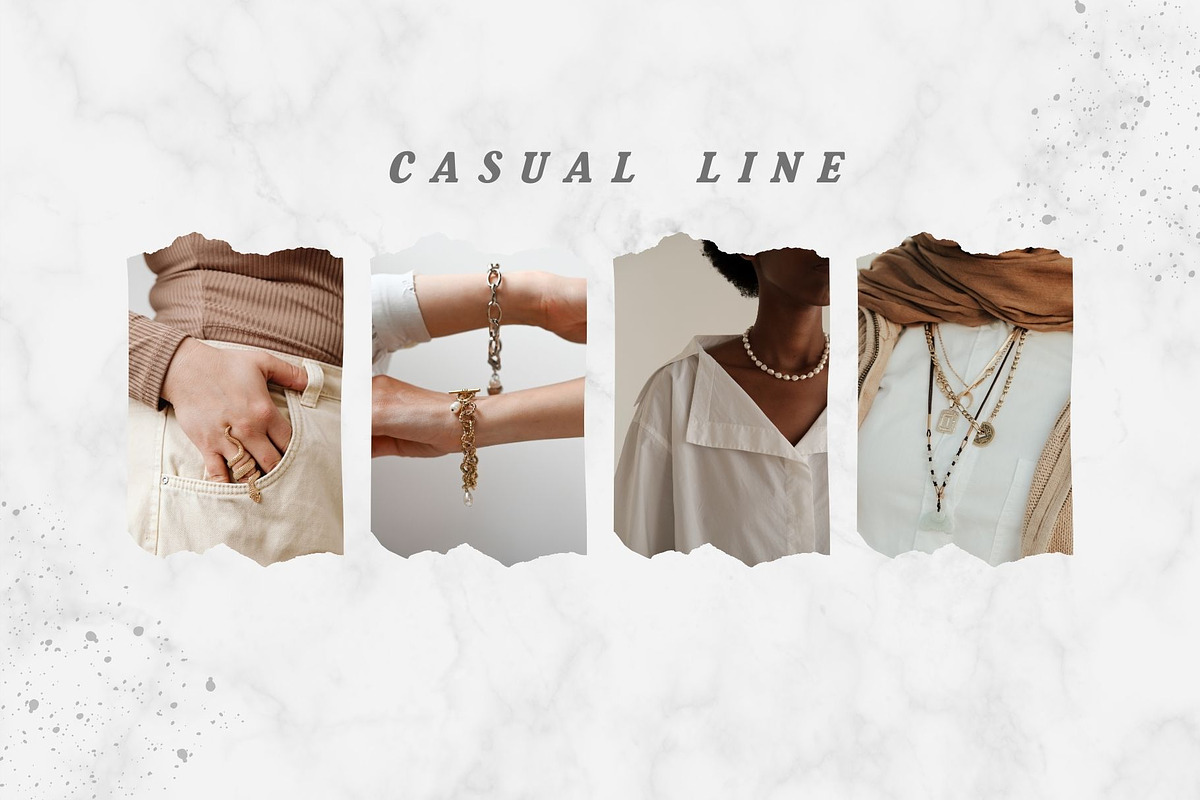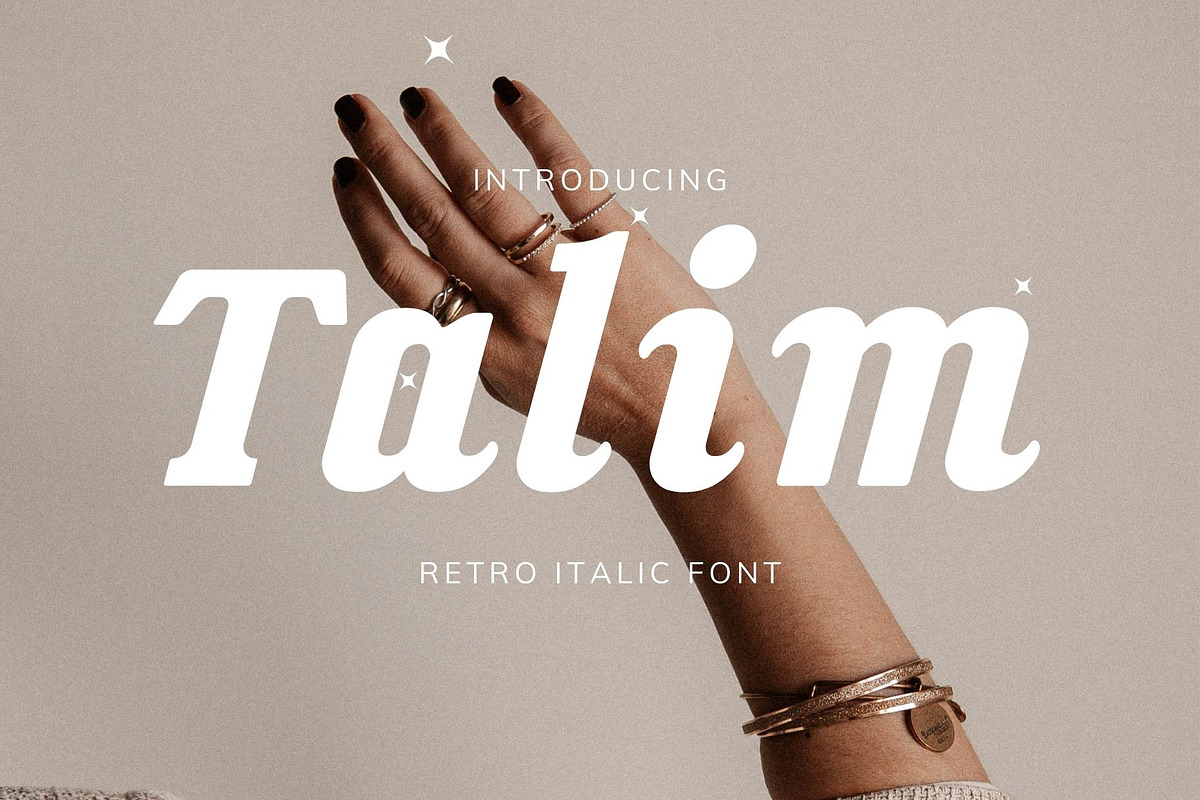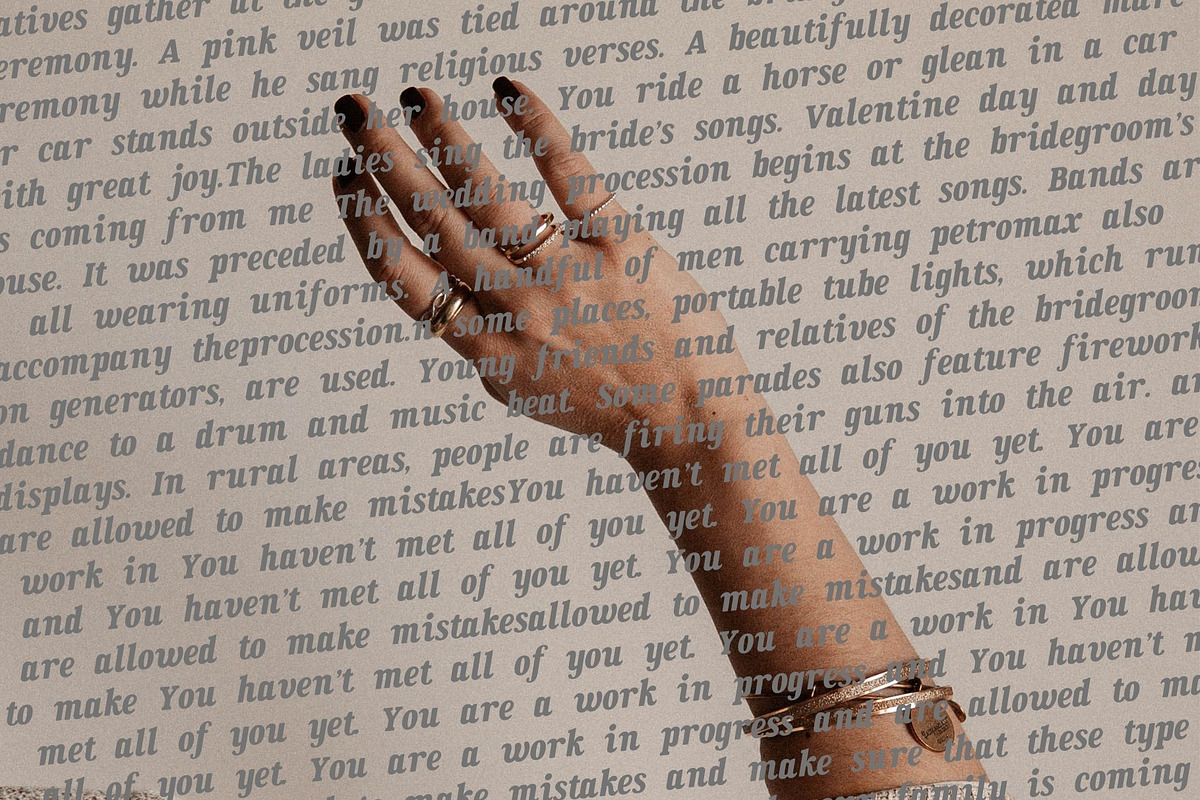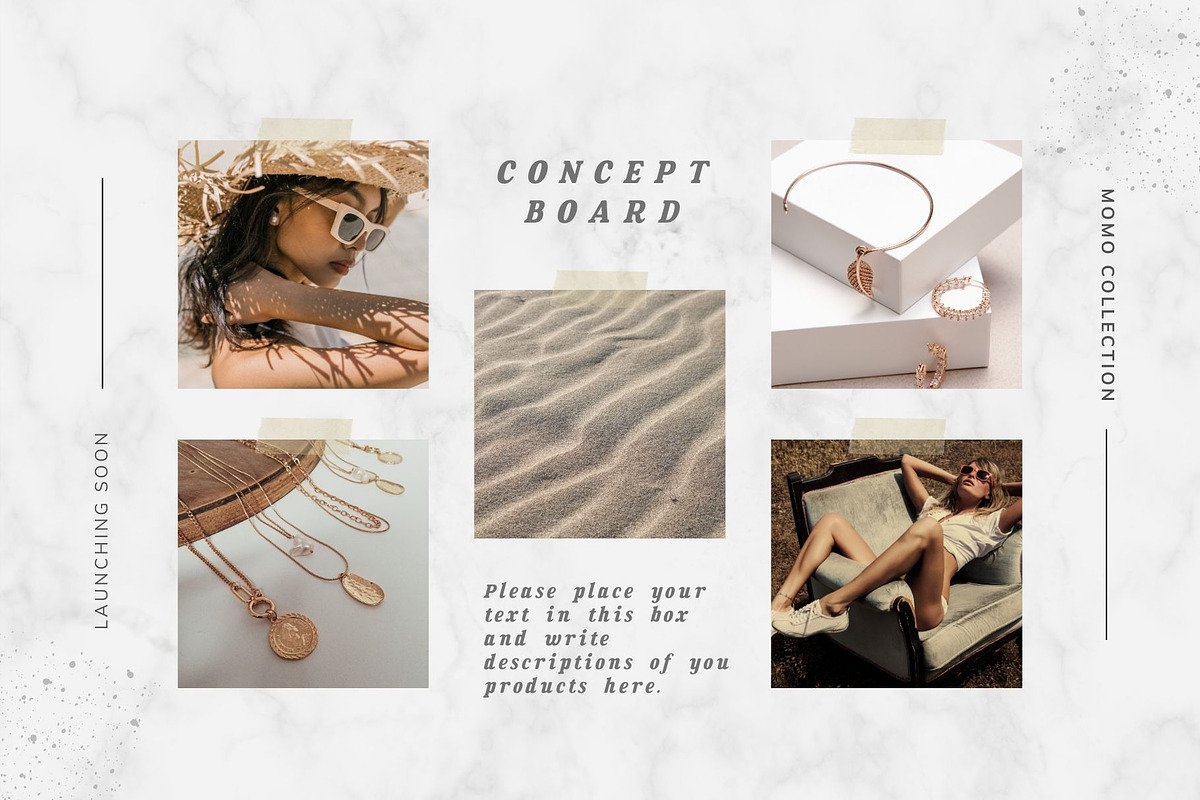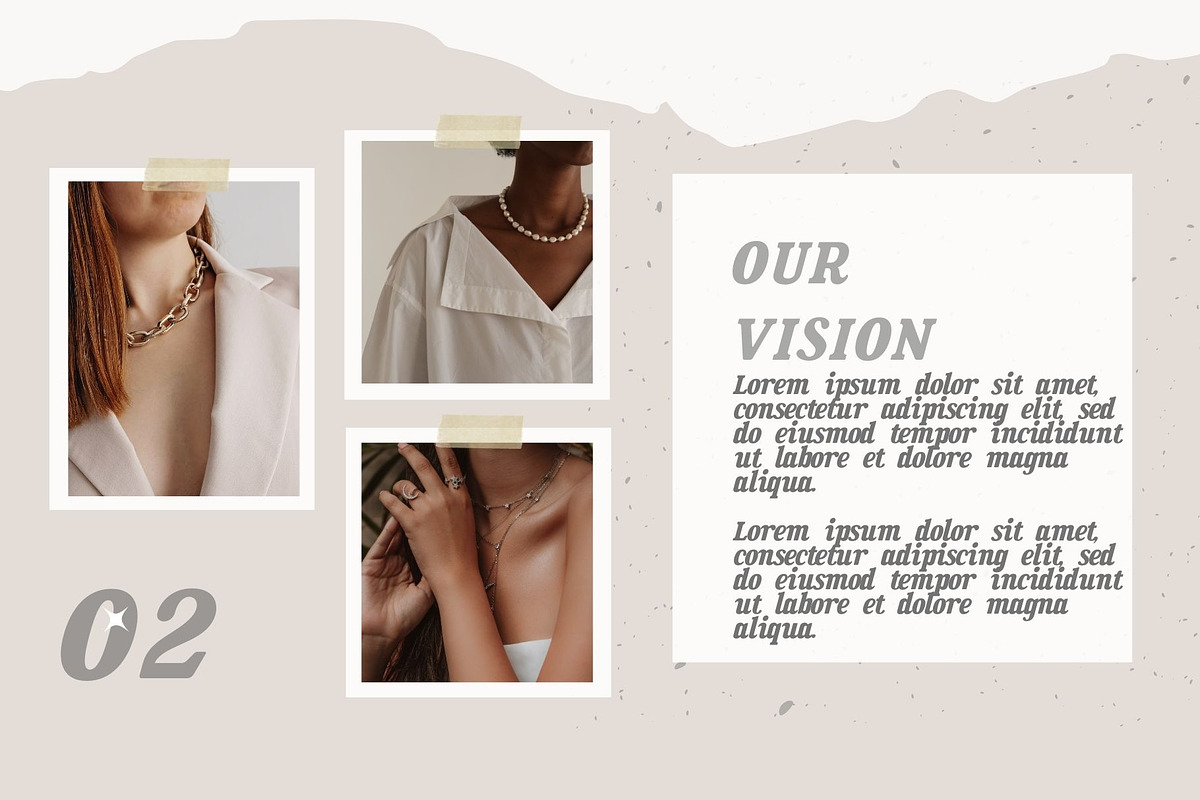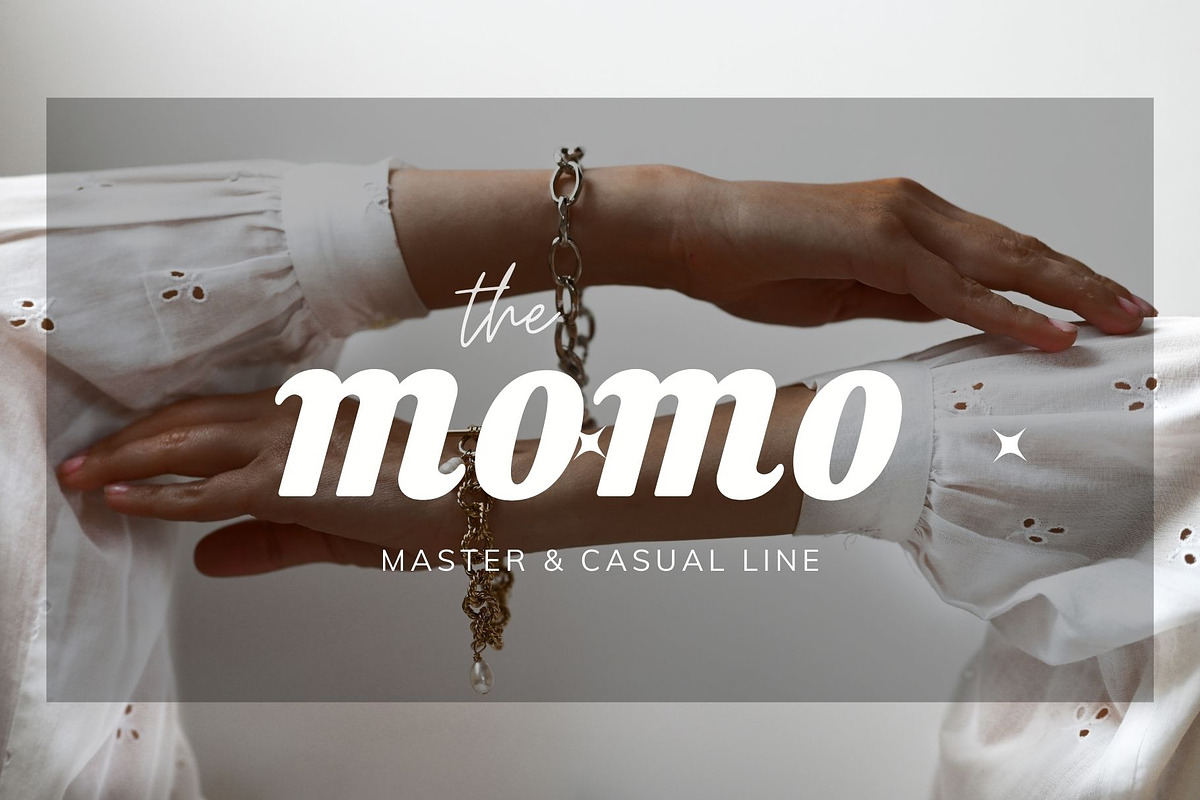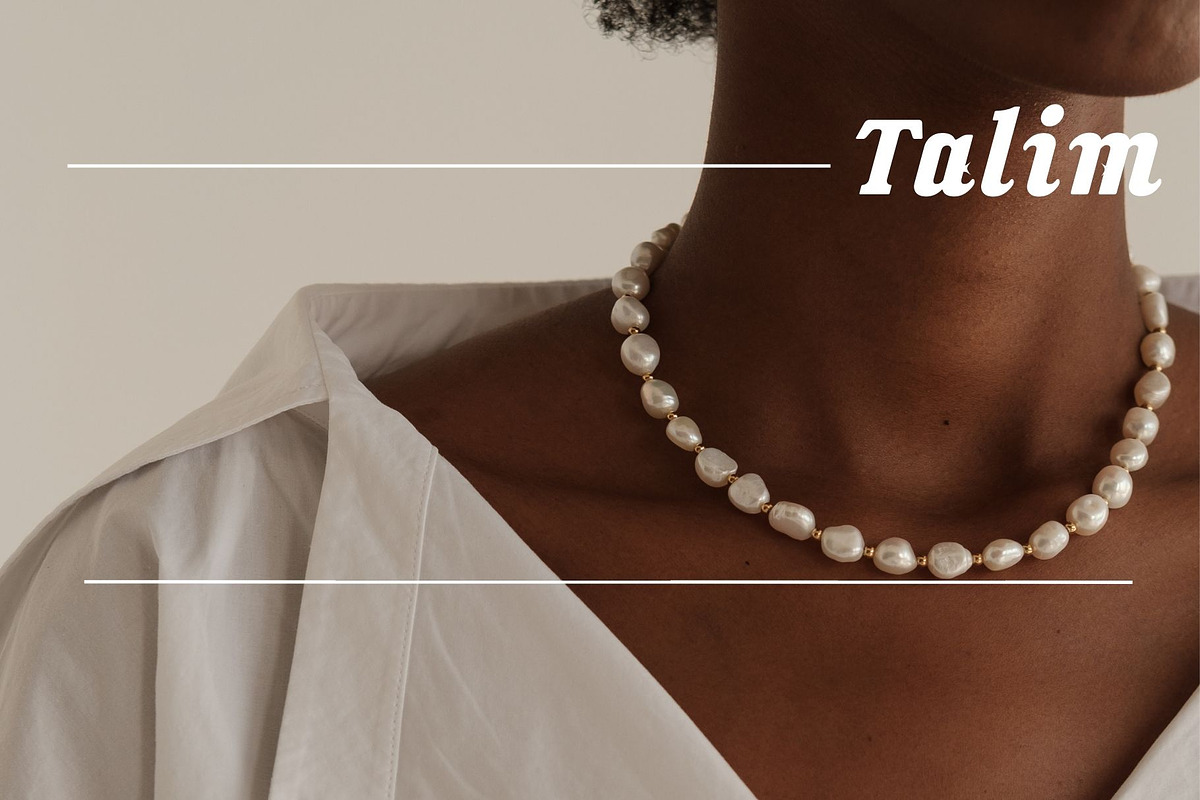
Talim | Retro Vintage Italic
Talim is a classic, retro styled slab Serif display font. This versatile script font has a wide spectrum of applications ranging from greeting cards to headlines and is guaranteed to add a distinct feel to your next project.